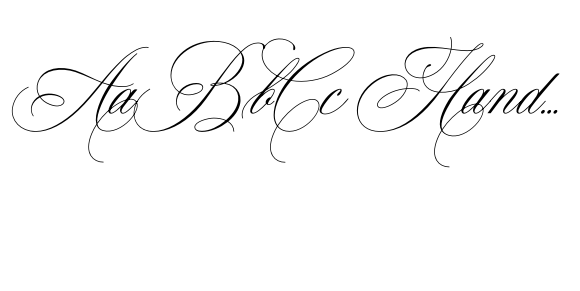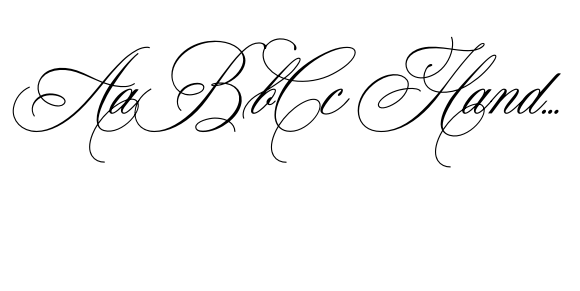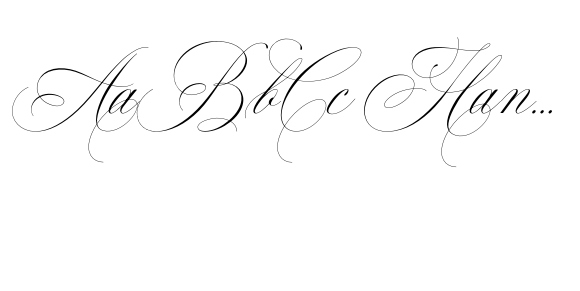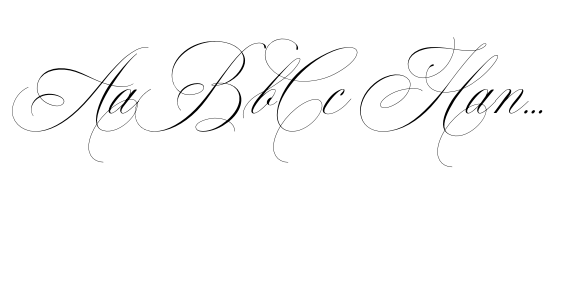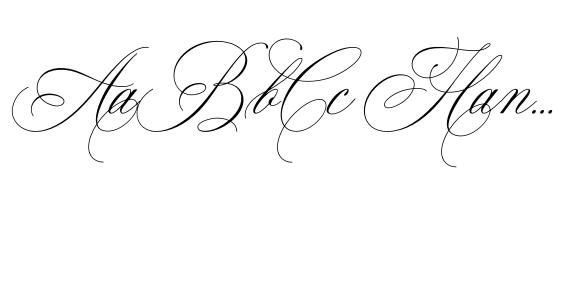
Juliette Wedding
por BlessedPrint
La familia tipográfica Juliette Wedding fue diseñada por Dmitrii Mikitenko y publicada por BlessedPrint. Juliette Wedding contiene 9 estilos y opciones de paquete familiar.
Introducing Juliette Wedding Font, a beautifully romantic script inspired by the elegance of Spencerian script and American handwriting. Perfect for creating unique wedding invitations, elegant signage, and sophisticated designs. With over 1600 glyphs and an extensive array of alternates and swashes for both uppercase and lowercase letters, the creative possibilities are endless.
Activate ligatures and type a number after the letter to use alternate glyphs: a1, a2, a3. Some letters have 40 or more variations.